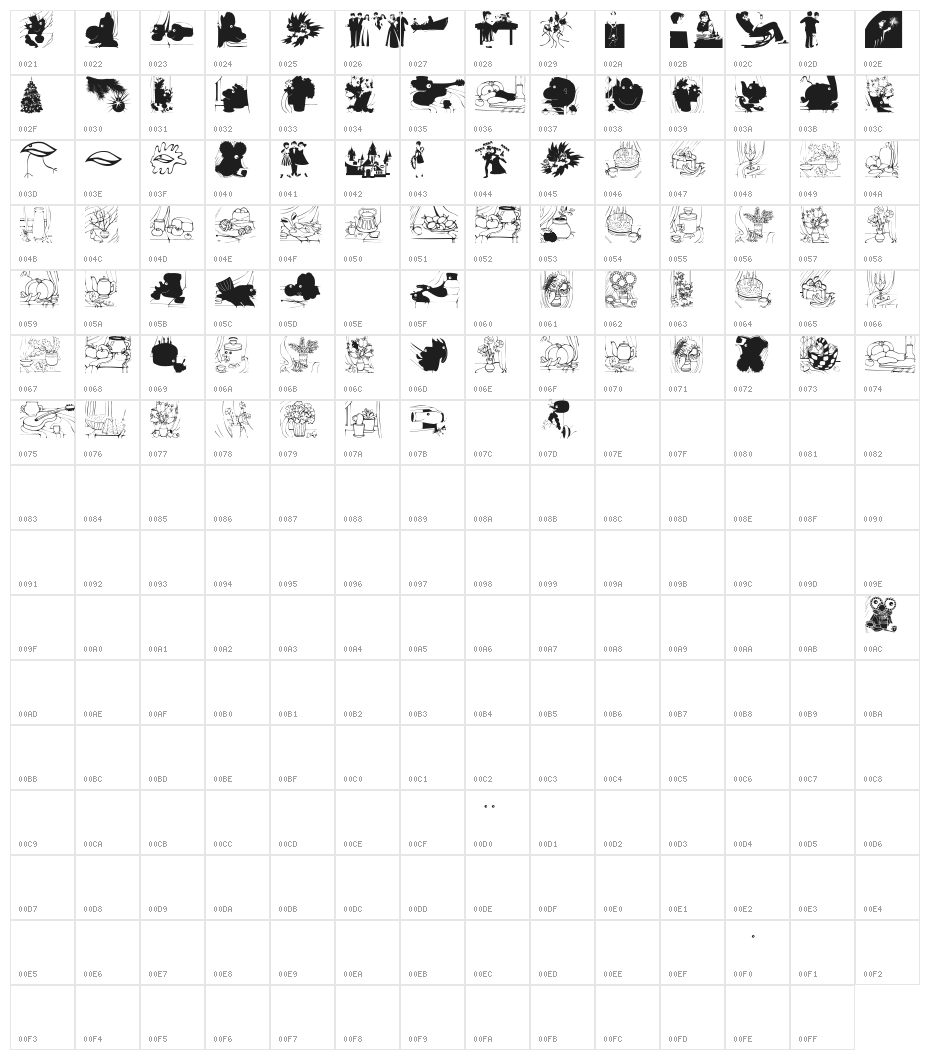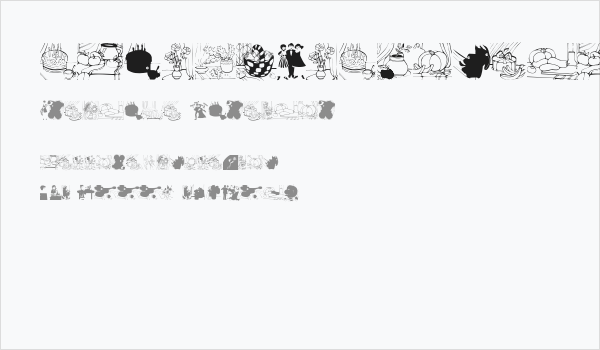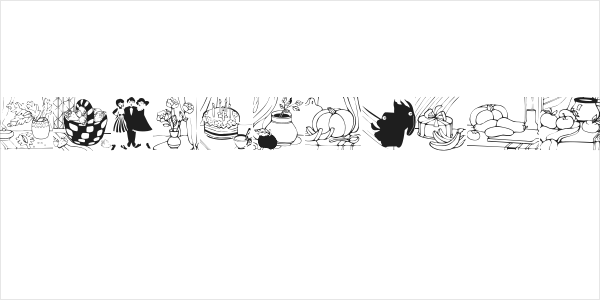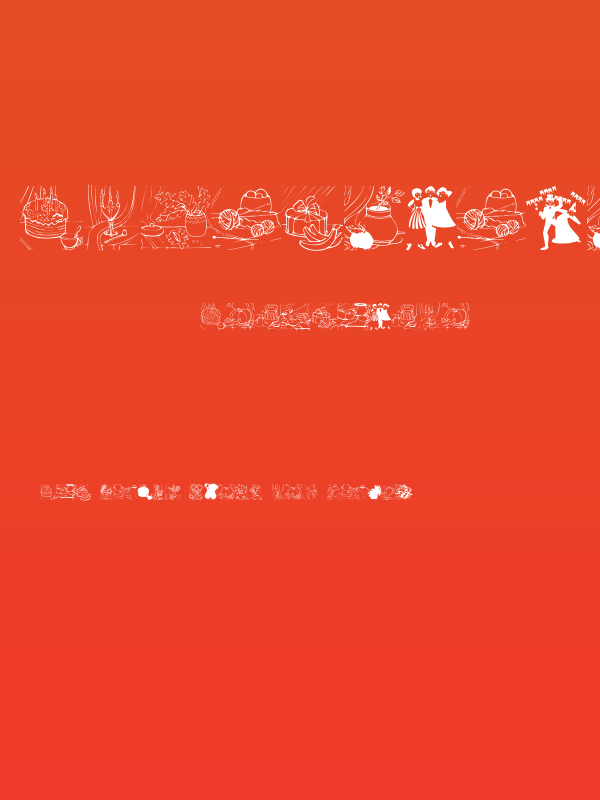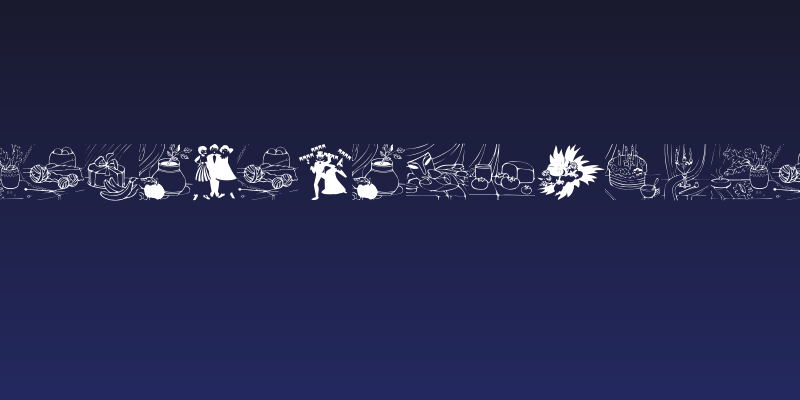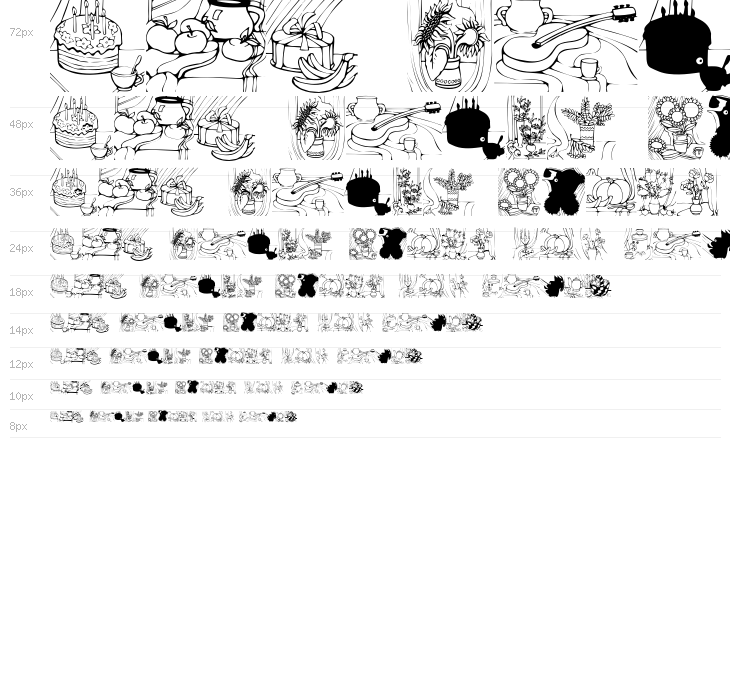
ThingsAndSomethings Font
ThingsAndSomethings Description
A decorative dingbat font featuring a variety of detailed illustrations, including people, still life scenes, flowers, musical instruments, and festive elements. The glyphs are highly pictorial, with both solid black silhouettes and fine line art styles, offering a whimsical and artistic appearance.
| Overall Style | Decorative, Whimsical, Artistic |
| Use Case | Decorative elements, Illustrative accents, Themed graphics |
| Proposed Projects | Greeting cards, event invitations, scrapbooking, decorative borders, themed posters, and creative design projects. |